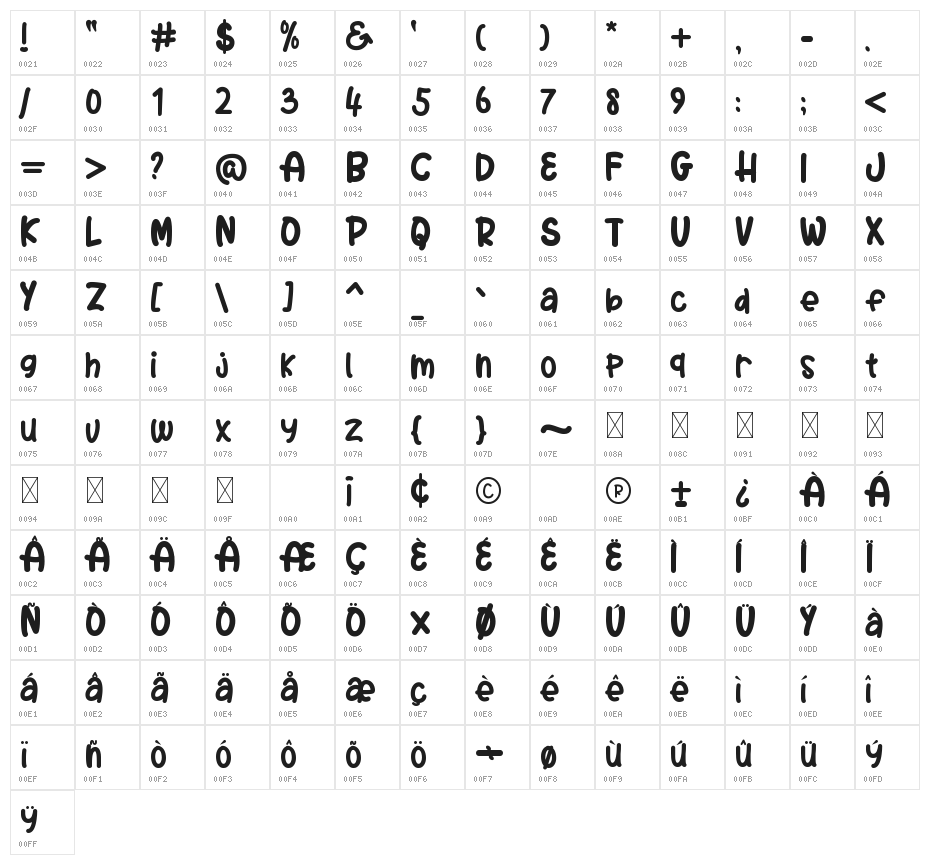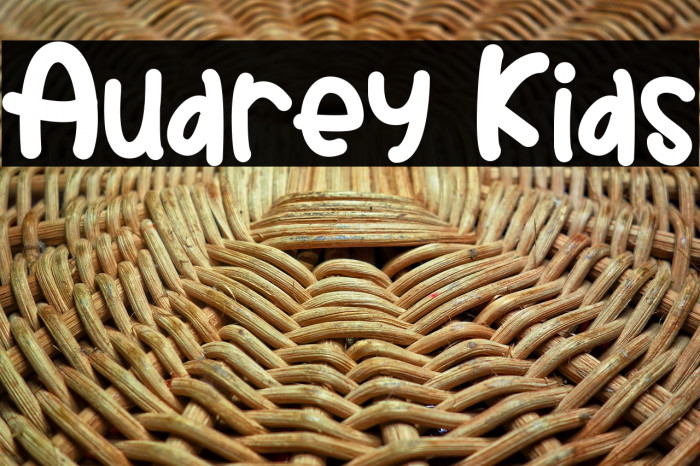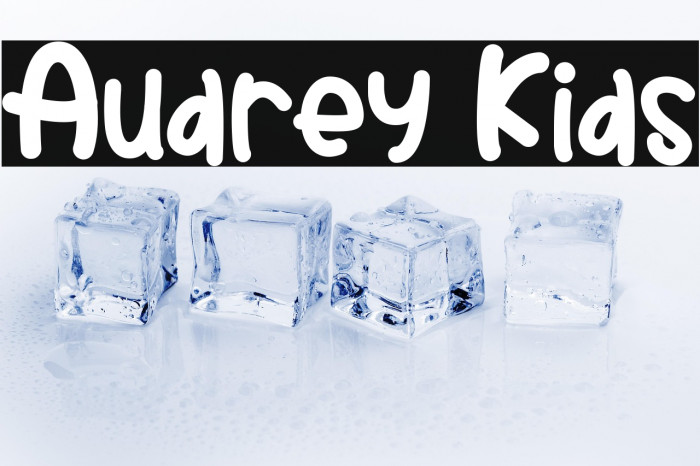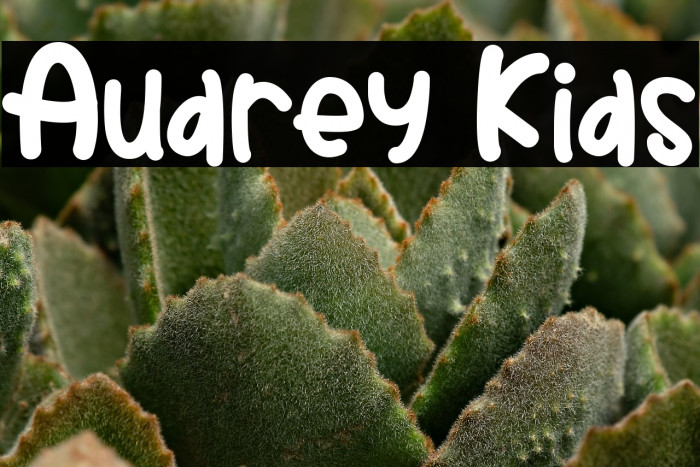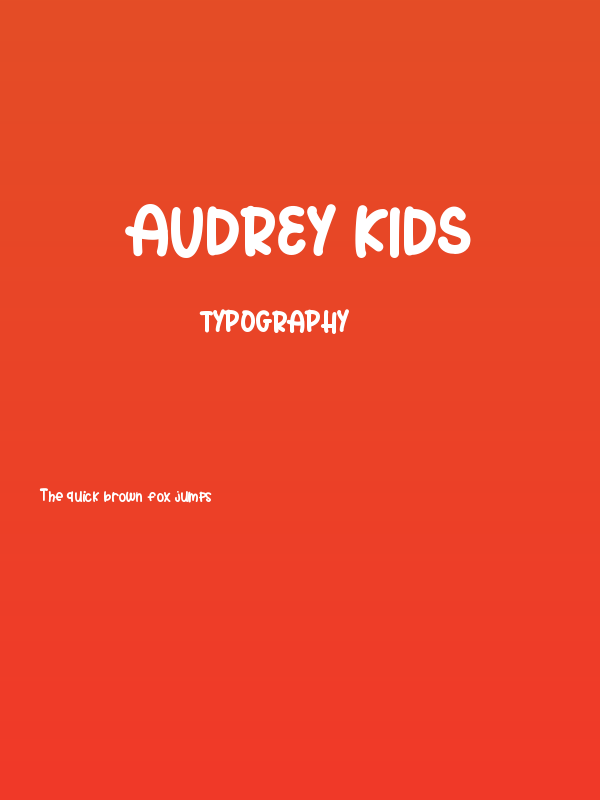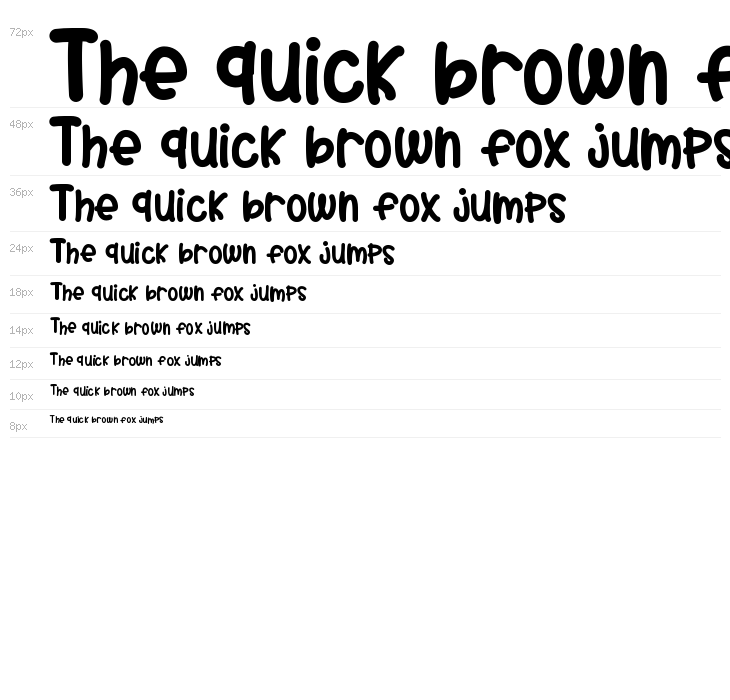
Audrey Kids Font
Audrey Kids Description
This playful and bold font features rounded, bubbly characters that exude a sense of fun and whimsy. The letters are thick and uniform in weight, with a slightly irregular baseline that adds to its casual, hand-drawn appearance. The font is highly legible, making it suitable for both children and adults. Its distinctive style is characterized by smooth curves and a friendly demeanor, perfect for projects that require a touch of lightheartedness and creativity. The numbers and special characters maintain the same playful aesthetic, ensuring consistency across all text elements.
| Proposed Projects | Ideal for children's books, playful branding, party invitations, and educational materials. |